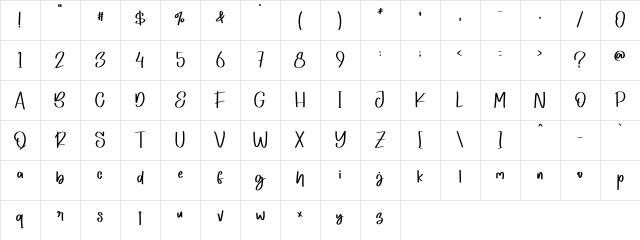
Gabrilya - Personal Use Regular Free Font
Gabrilya - Personal Use Regular
Designer: Ahmad Afandi
Design Context for Gabrilya - Personal Use
Gabrilya - Personal Use is a composed and adaptable typeface that performs quietly and consistently across a wide range of design contexts.